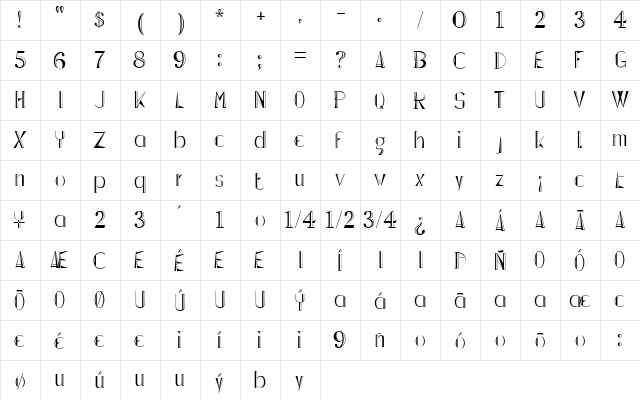
Lepinado Line Regular
| Foundry | Pedro Lepinado Mu |
| Designer | Pedro Lepinado Mu |
Design Context for Lepinado Line Typeface
Lepinado Line is a composed and adaptable typeface that performs quietly and consistently across a wide range of design contexts.